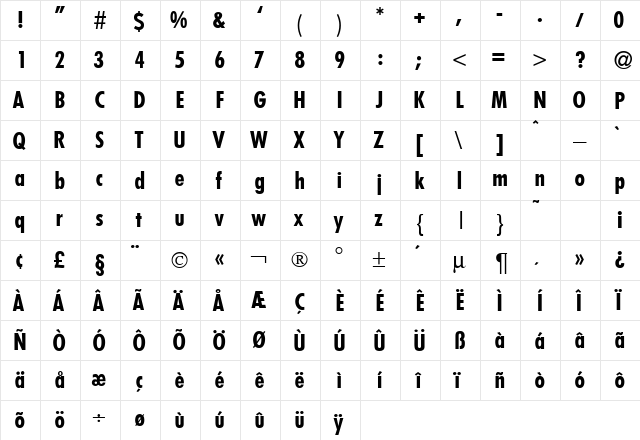
FutoralConDB Normal Font Preview
FutoralConDB Normal
Design Context for FutoralConDB Typeface
FutoralConDB offers clean, dependable letterforms without strong stylistic allegiance, making it a practical choice for designers who need flexibility. The condensed width makes it efficient for tight spaces without sacrificing legibility.
Pro Tip: Use FutoralConDB in both headline and body roles to test its range before committing to a single application.